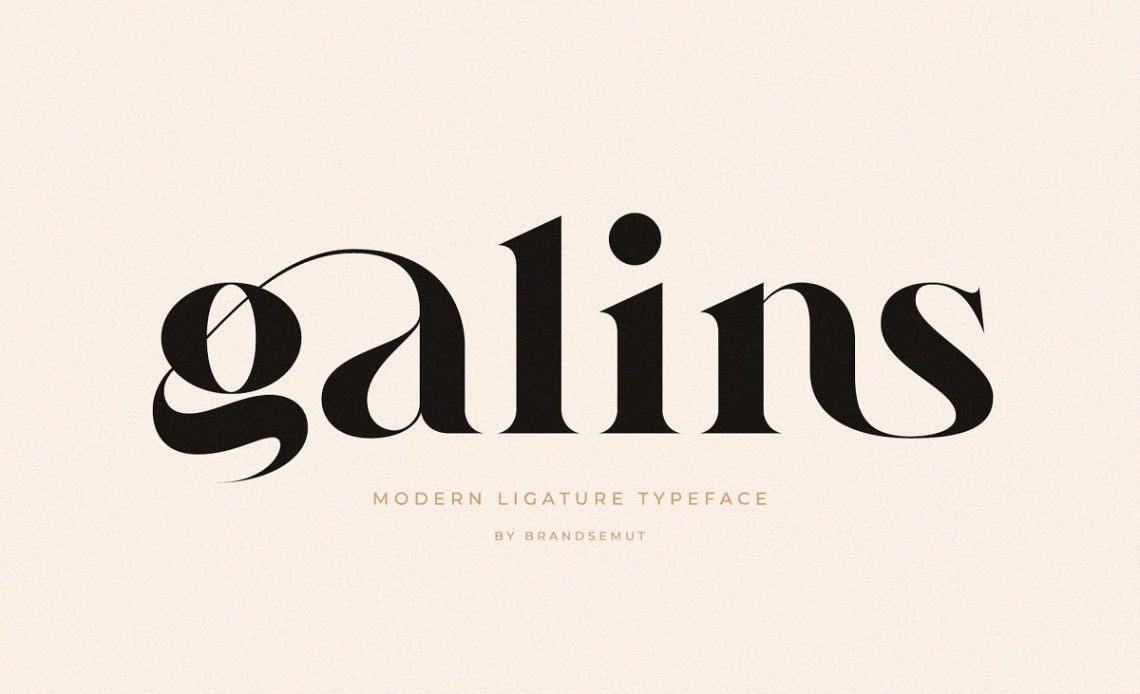
Are you planning a wedding and looking for the perfect font for your envelopes? Look no further than Galins Ligature Typeface! Created by the talented designer Ahmad Sidiq, this modern and elegant serif font is the perfect addition to any wedding invitation.
Galins is not just for weddings, though. Its modern and luxury style makes it a versatile font that works great for logos, magazines, social media, and more. Its already-matched-up style ensures that it is ready to be used together for your next design, making it the perfect font for those who need a touch of elegance, style, class, chicness, and modernity in their designs.
But why choose Galins over other fonts? Well, for starters, its elegant and stylish design is sure to catch the eye of anyone who sees it. Its modernity and luxury will make your designs stand out from the crowd, and its versatility ensures that it can be used in a variety of different contexts.